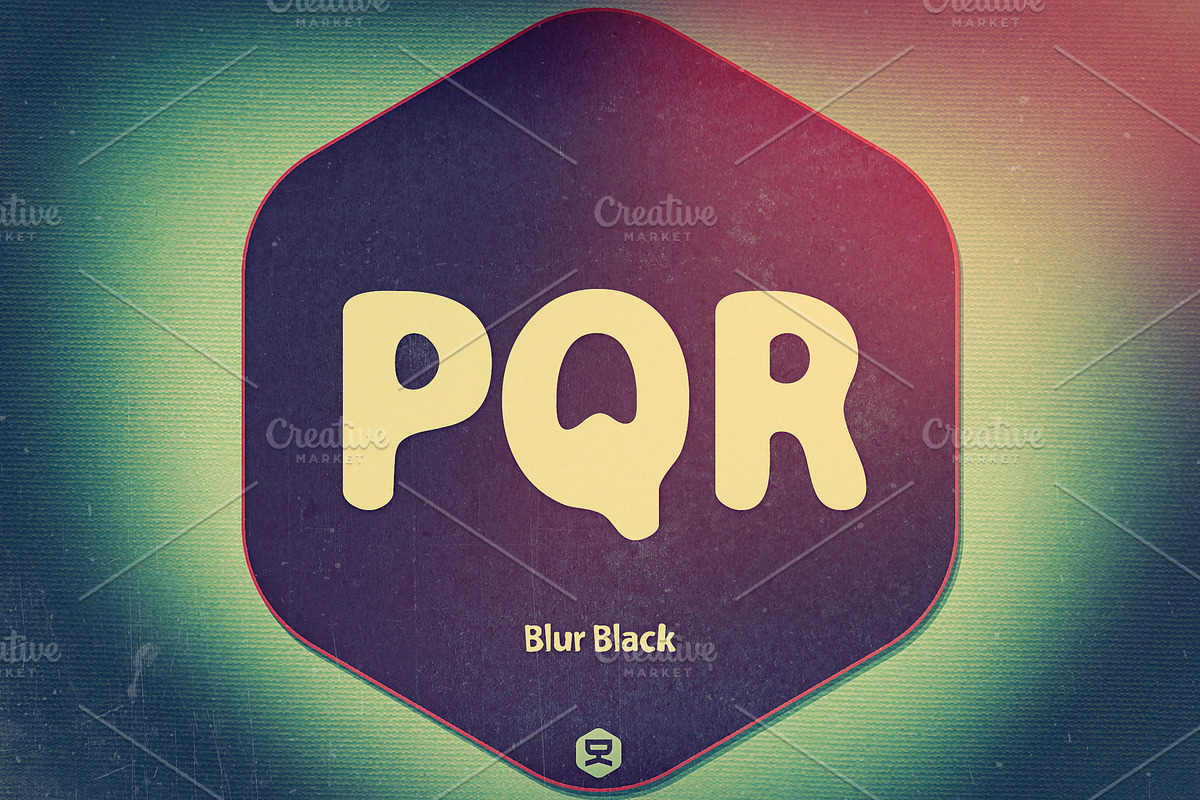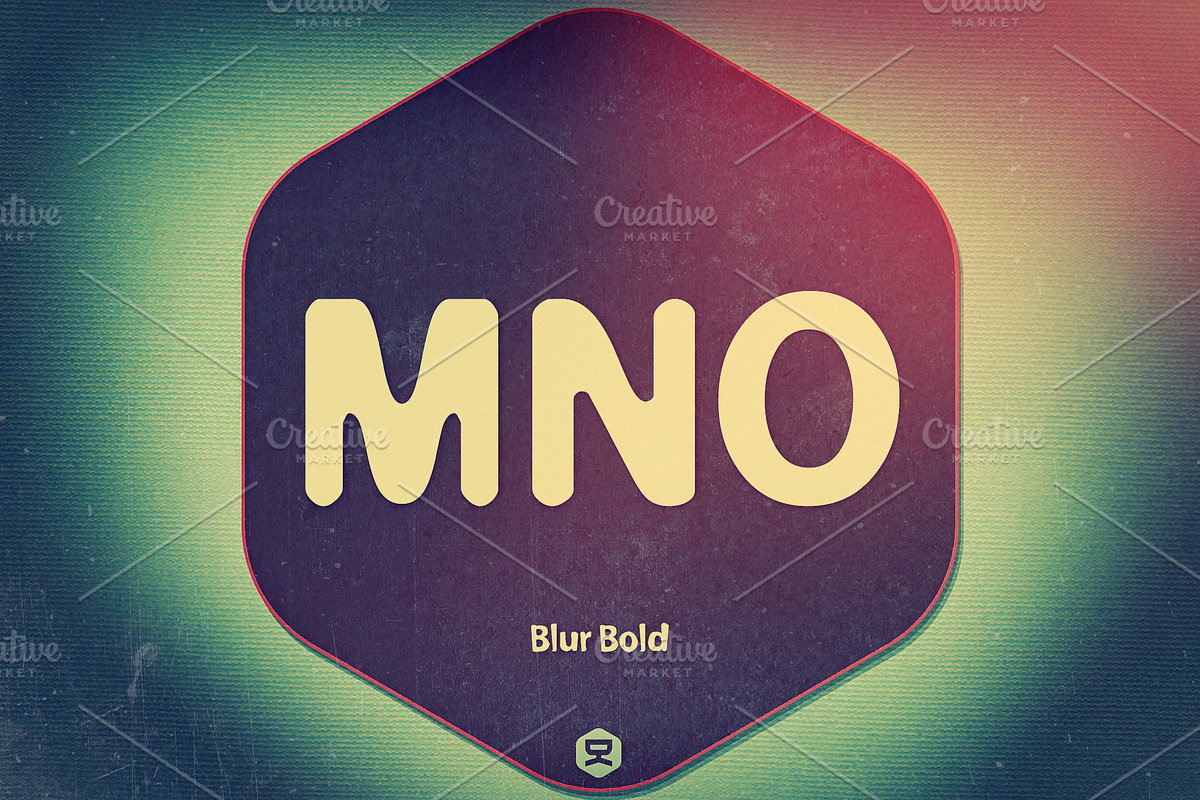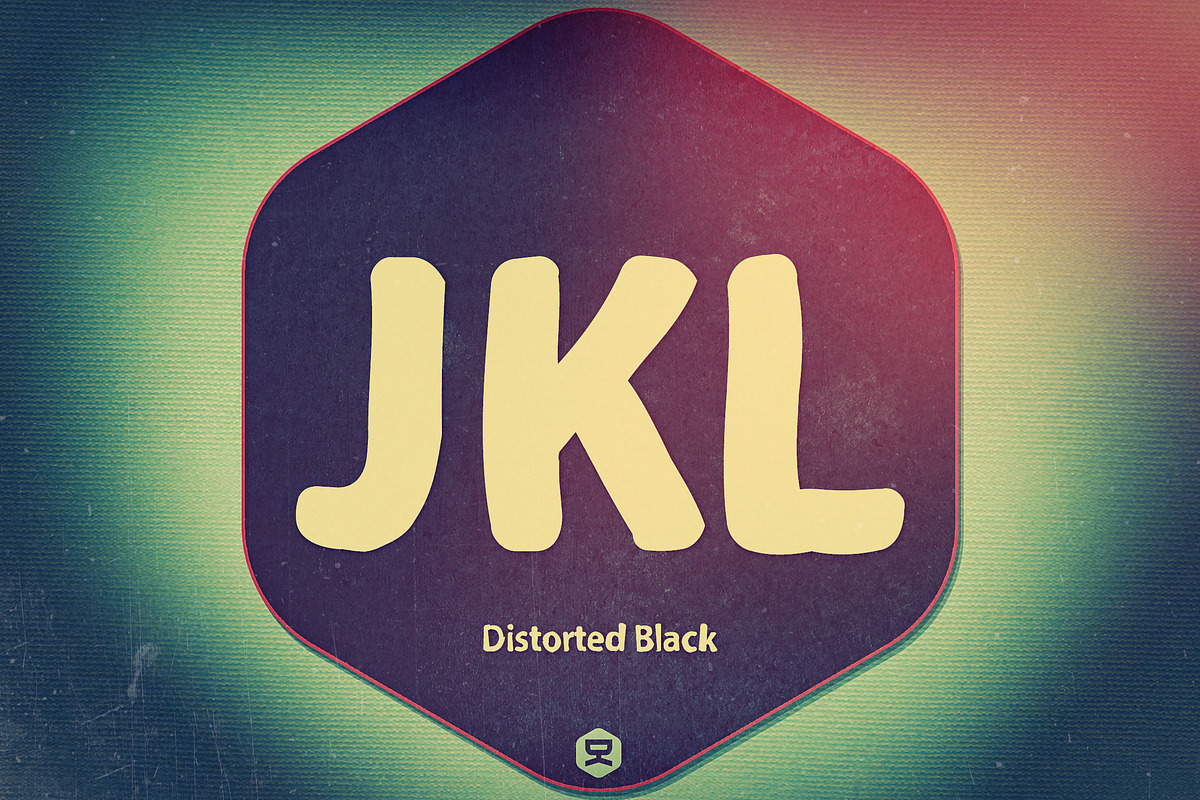
CARSON EXTRAS is a collection of distorted, handwritten and blurred variants of original Carson font (https://crmrkt.com/82DVE).
- 6 weigths (Blur Bold, Blur Black, Handwritten Bold, Handwritten Black, Distorted Bold, Distorted Black)